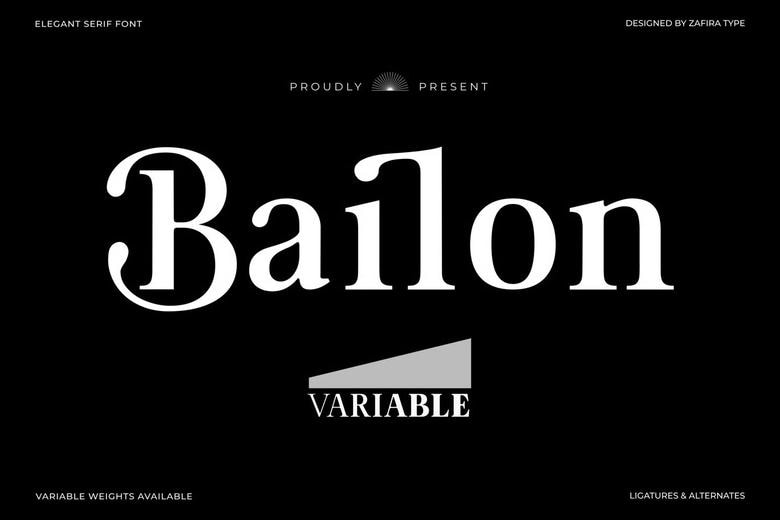
Bailon Variable Font
Bailon Variable is a modern serif font with a clean look. It uses a single-axis variable structure that focuses on font weight. By combining all weights into one file, it offers technical efficiency and keeps your designs consistent.
Bailon Variable Serif Font